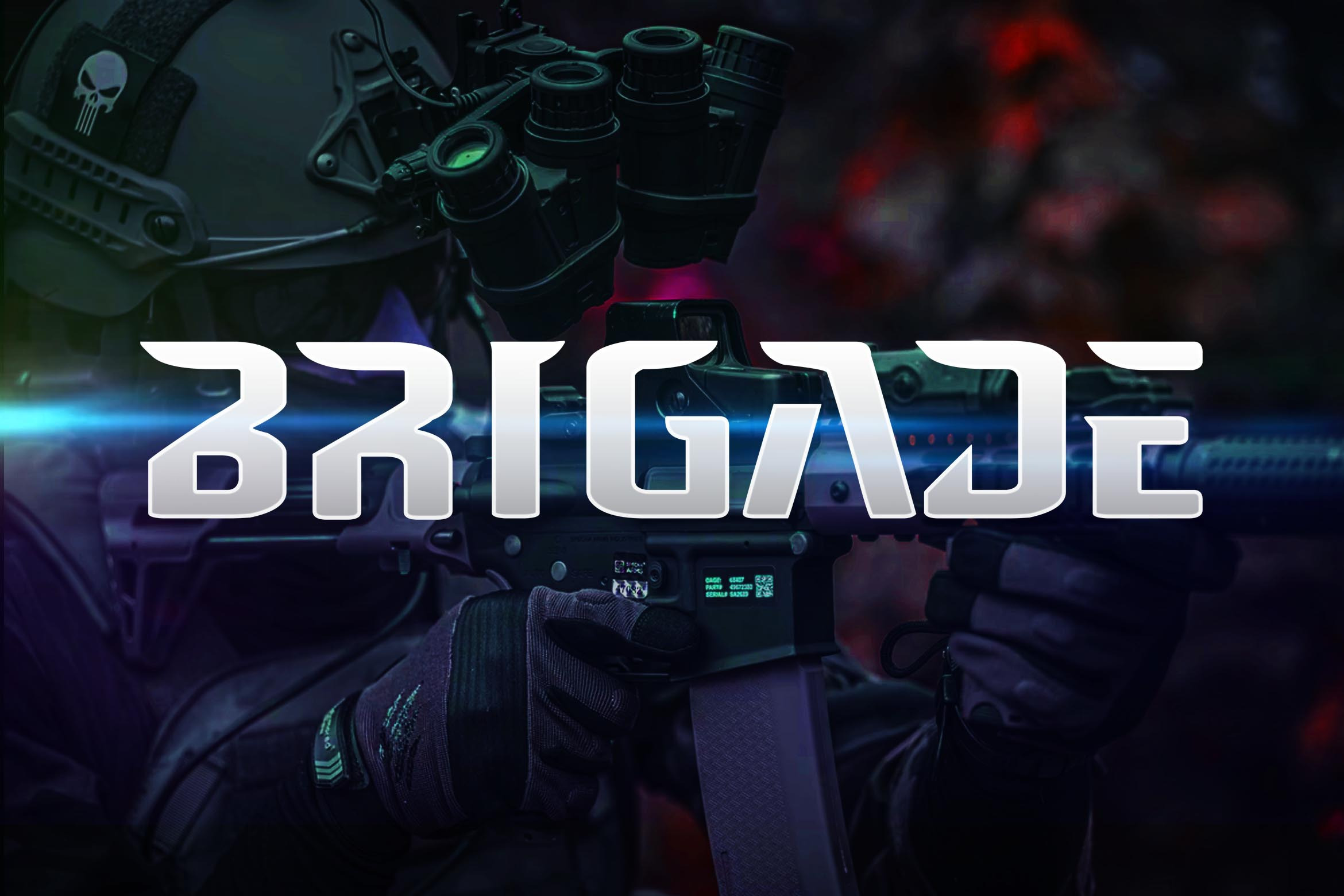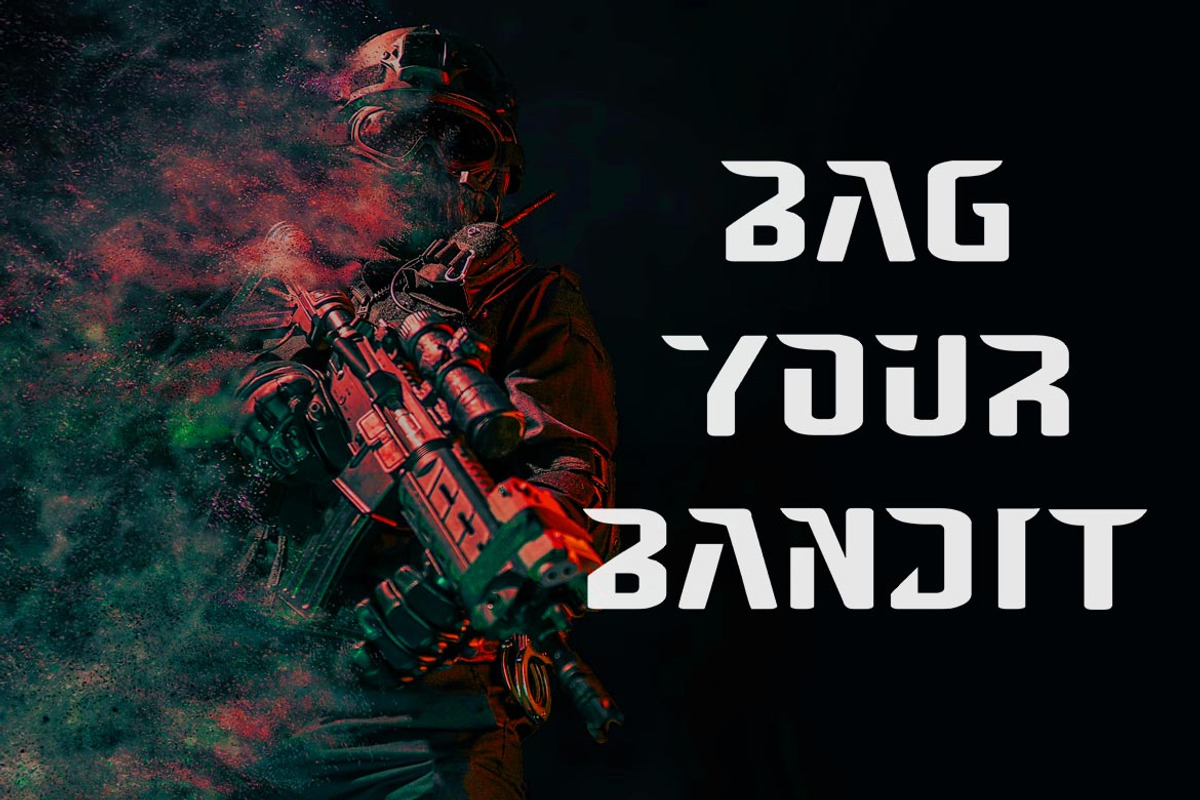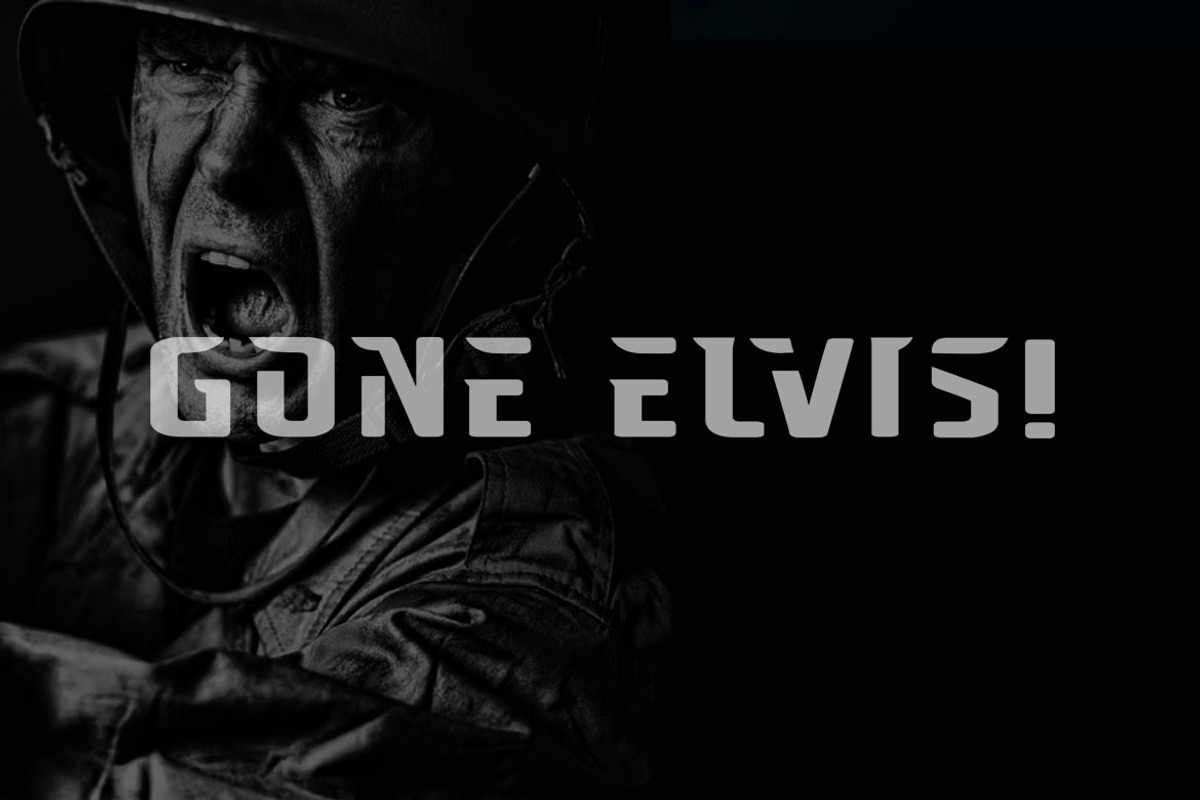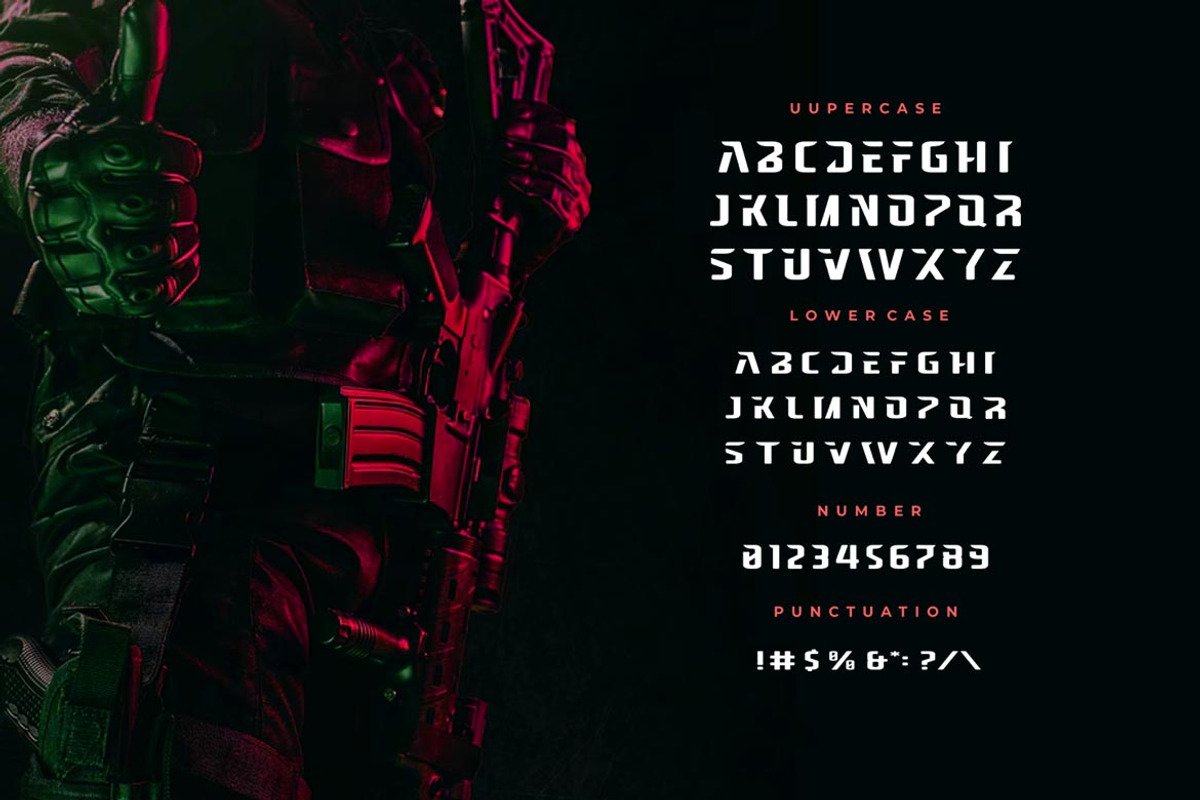
Brigade Modern Techno Military Font
Introducing Brigade - Modern Techno Military Font Typeface
Introduce my new font called Brigade. Qliphort is a futuristic font inspired Game Online and Movies. This font is suitable for various purpose such as movies, posters, logos, webfont and any modern purposes.